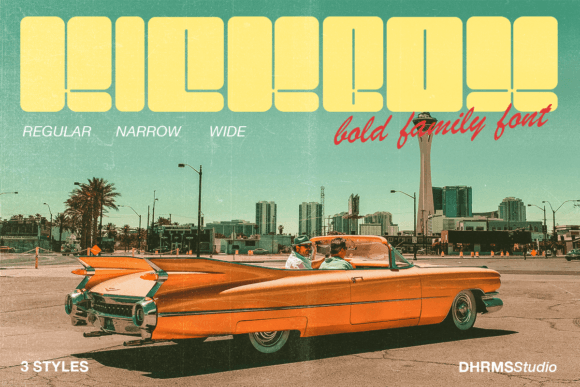
Unleash your creativity with Kickbox Font, the ultimate font for Cricut enthusiasts and design aficionados! This captivating sans serif font, meticulously crafted by Dharmas Studio, exudes a bold, confident personality that will elevate your projects to new heights. Immerse yourself in the world of Kickbox Font and discover a symphony of versatility, trendiness, and boundless possibilities.
With its crisp, clean lines and striking all-caps design, Kickbox Font commands attention wherever it goes. Whether you're a seasoned crafter or a budding digital designer, this font is your perfect companion. Its effortless charm adds a touch of sophistication to your Cricut creations, from intricate cutouts to eye-catching decals. Unleash your imagination and let Kickbox Font transform your projects into masterpieces.
Take your presentations to the next level with Kickbox Font's commanding presence. Its bold strokes and confident demeanor captivate audiences, leaving a lasting impression. From business proposals to educational seminars, Kickbox Font ensures your message is delivered with impact and clarity.
Dive into the realm of greeting card making with Kickbox Font and spread joy, love, and laughter. Its playful yet elegant style adds a personal touch to your heartfelt messages, making every card a cherished keepsake. Whether it's a birthday wish, a heartfelt thank you, or a simple hello, Kickbox Font transforms your greetings into works of art.
Kickbox Font is more than just a font; it's an experience that ignites your creativity and empowers you to express yourself in countless ways. Its versatility knows no bounds, inspiring you to explore new horizons in design. Embrace the limitless potential of Kickbox Font and unlock the true essence of your creative spirit.